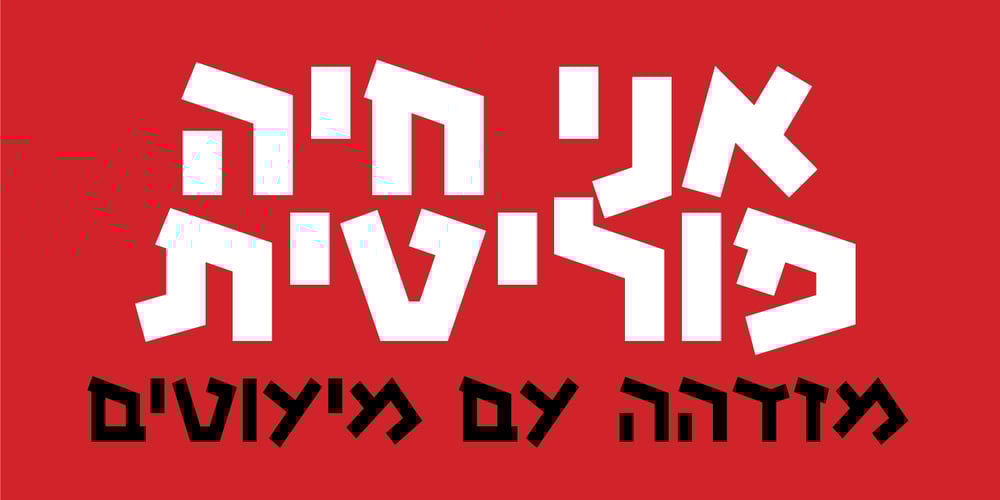
Hagedi MF Font Family was designed by Gad Almaliach and published by Masterfont. Hagedi MF contains 3 styles and family package options. Tattoo? Crazy look? this naughty, works best for wild and crazy headlines or signage.